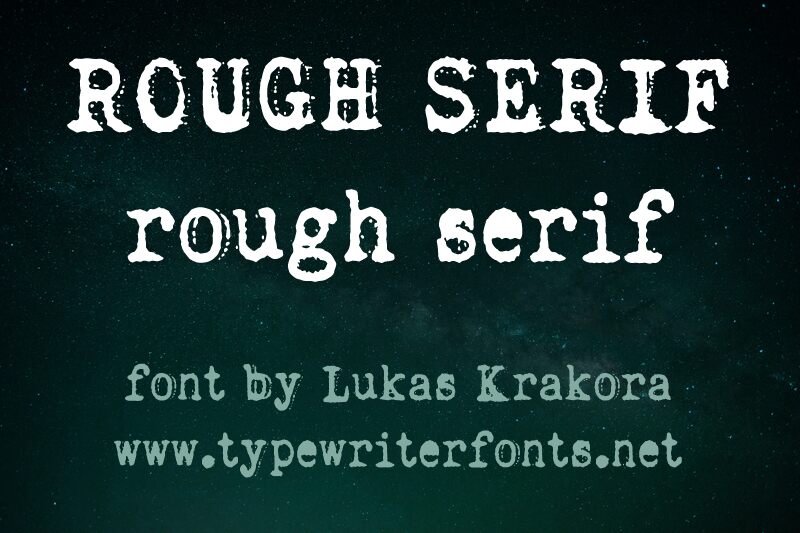
Rough Serif emerges as a distinctive display font crafted by the talented Lukas Krakora, embodying an eroded style that exudes a raw and textured aesthetic. As a 2023 creation, Rough Serif offers an organic feel with its deliberately weathered contours, making it particularly well-suited for projects that require a touch of grit and character.
The uniqueness of Rough Serif lies in its ability to marry the classic structure of serifs with the edginess of an eroded typeface. This juxtaposition creates visual intrigue and delivers a strong graphic impact that can capture attention in various creative mediums.
Ideal for designers seeking to infuse their work with personality, Rough Serif shines in contexts that benefit from its rugged charm-be it branding, poster design, editorial spreads or artistic compositions. While the font is available for free for non-commercial use, those wishing to employ it commercially can reach out directly to Krakora for licensing details.
With Rough Serif's notable style and appearance, designers are empowered to make bold statements and evoke emotions that resonate through every textured letterform.